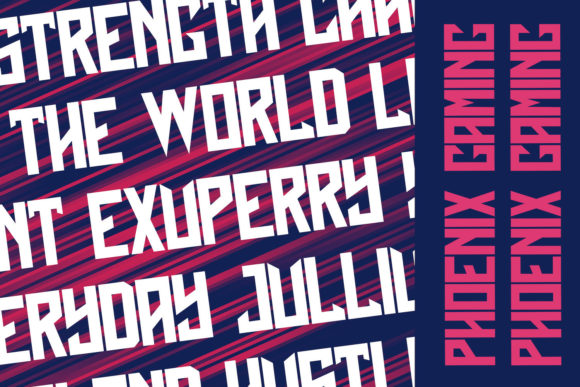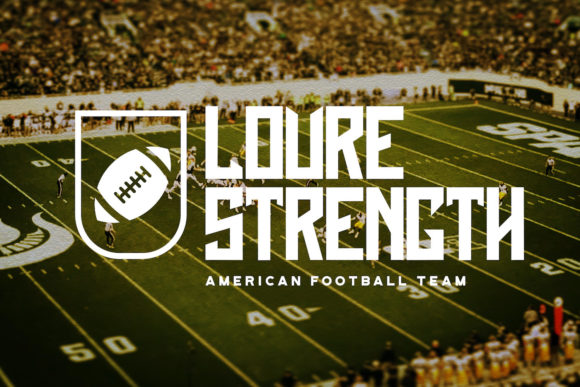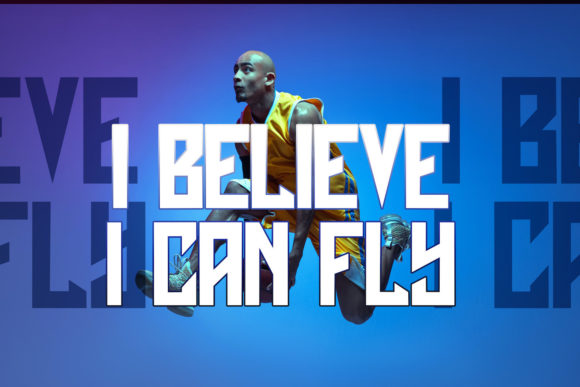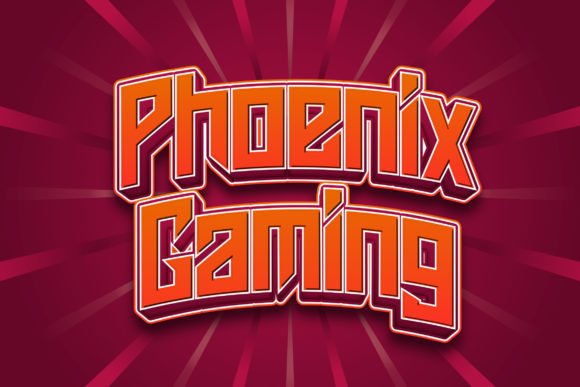
Introduction to Phoenix Gaming Font
Phoenix Gaming is a modern futuristic sans font with a bold feel.
It will add a contemporary look to any design product On top of everything, its techno style makes it the ideal font for titles, subtitles, and UI.
Key Features of Phoenix Gaming Font
Why Choose Phoenix Gaming Font?
Phoenix Gaming Font offers exceptional quality and versatility, making it a valuable addition to your design toolkit. Whether you’re creating for personal projects or commercial use, Phoenix Gaming Font delivers professional results.